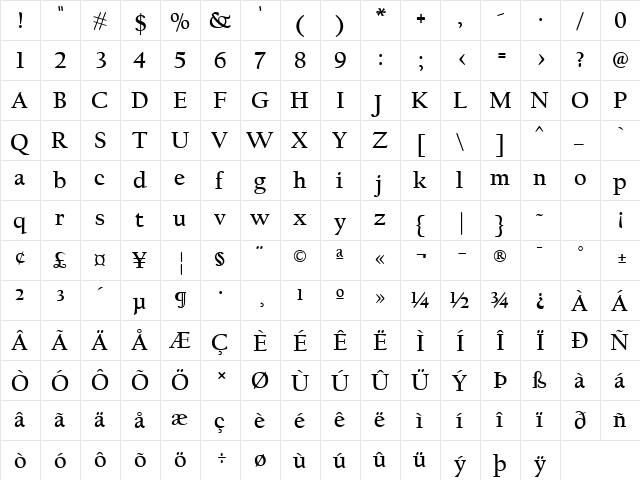
Californian FB Bold
| Foundry | The Font Bureau, Inc. |
| Designer | David Berlow |
Design Context for Californian FB Typeface
Californian FB offers clean, dependable letterforms without strong stylistic allegiance, making it a practical choice for designers who need flexibility. Its bold stroke weight gives it real presence on the page.